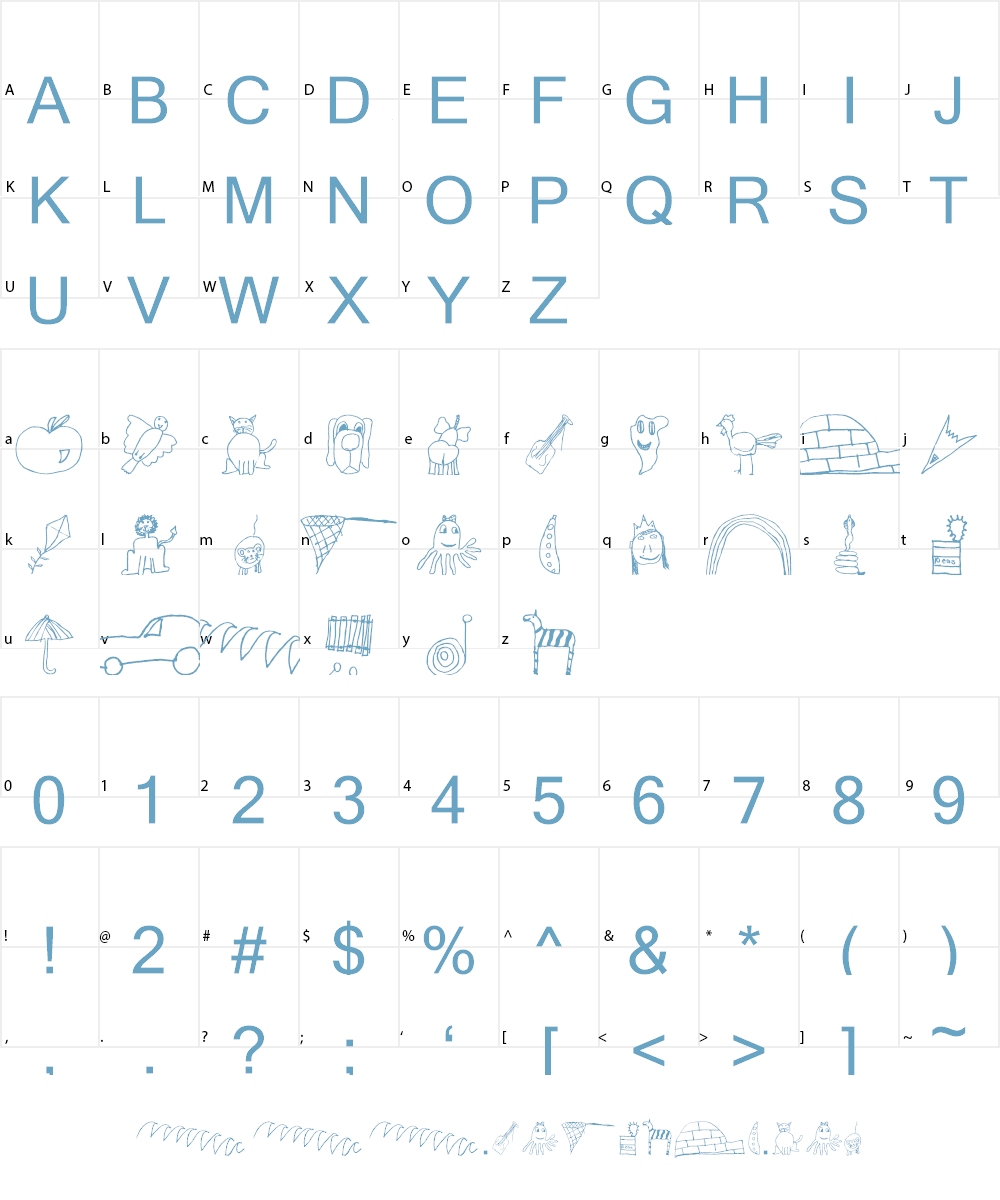
My kids drew the pictures I used for the glyphs here. In some places one has to stretch the imagination to see the association between the picture and the character, but they are very proud to see their own artwork in this format.